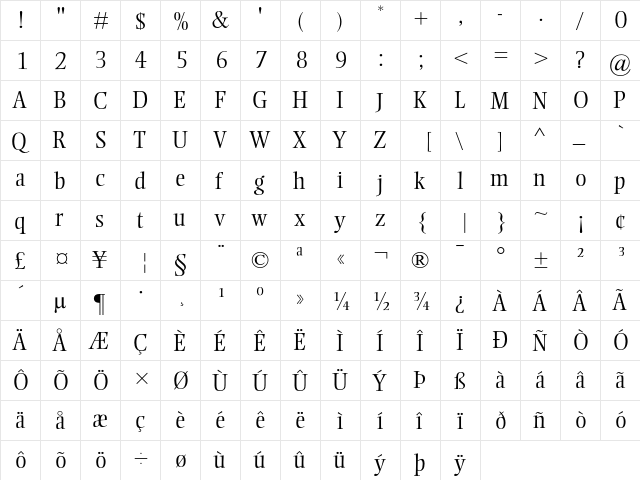
Ellington Light
Design Context for Ellington Typeface
Ellington offers clean, dependable letterforms without strong stylistic allegiance, making it a practical choice for designers who need flexibility. Its slender proportions lend an understated elegance to any composition.